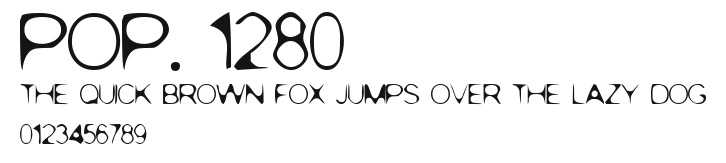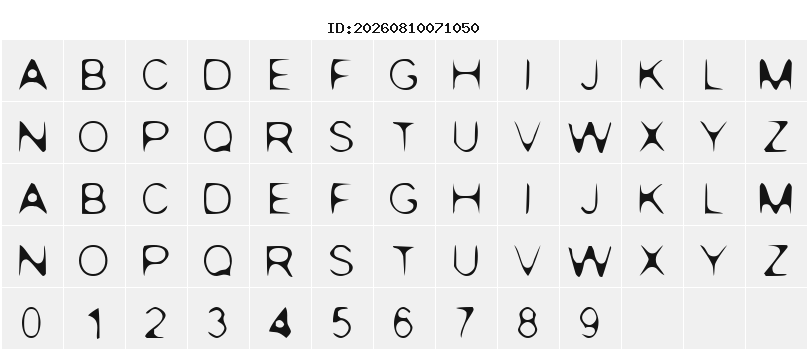
• Font Name: POP. 1280
• Full Font Name: POP. 1280
• Version: Displays greek characters as well.
• Copyright: Dimitris Kolyris @ pOPdOG fONTS-Nov.98.
About POP. 1280.ttf
POP. 1280.ttf is a modern, elegant sans-serif font designed for ultimate readability and visual harmony. Perfect for branding, headlines, web design, and print materials.